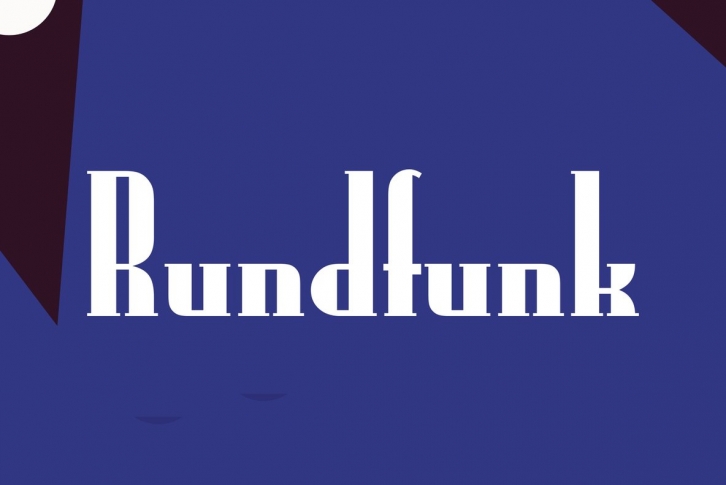
This condensed typeface features an unusual lowercase with an extremely low x-height to accentuate the tall ascenders that align with the capitals. The Type Studio reworked the original Rundfunk created by designer Adolf Behrmann for the Berthold typefoundry in 1928. An ideal choice for projecting a 1930's mood.